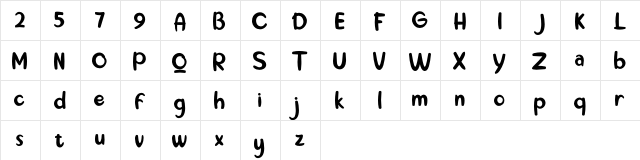
the Hungary Regular
Design Context for the Hungary Typeface
the Hungary is a composed and adaptable typeface that performs quietly and consistently across a wide range of design contexts.